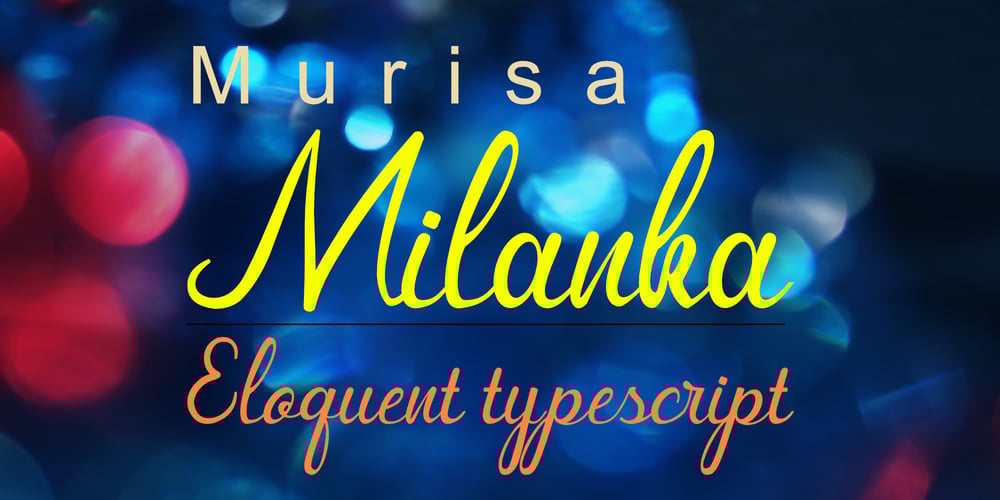
Murisa Milanka
Murisa Milanka font
Murisa Milanka Font Family was designed by Lili Sadili and published by Murisa Studio. Murisa Milanka contains 1 styles and family package options. Hello, how are you? Today we are proud to present our newest font. Her name is Murisa Milanka Font. Take a look at what we’ve done to this font. With this font, we have marked a new era in the creation of fonts that are more harmonious, more flexible, more beautiful and of course even better support for our friends from Eastern Europe. Look at the beauty this font has. You will get satisfaction in having it. Have it now.